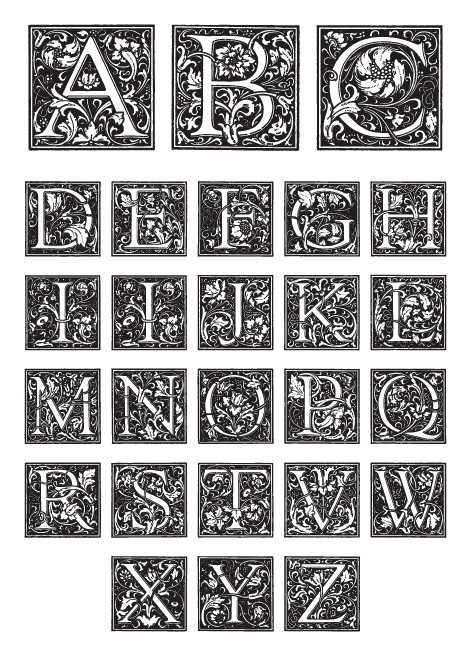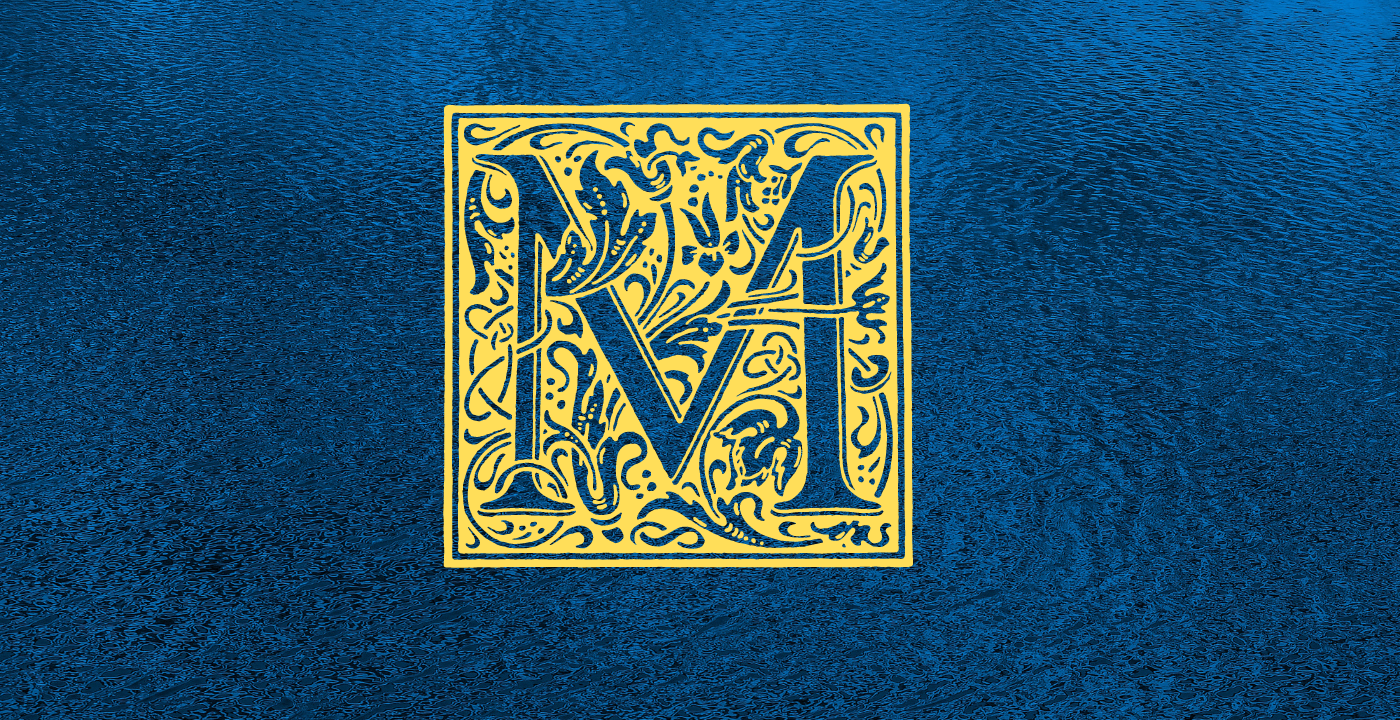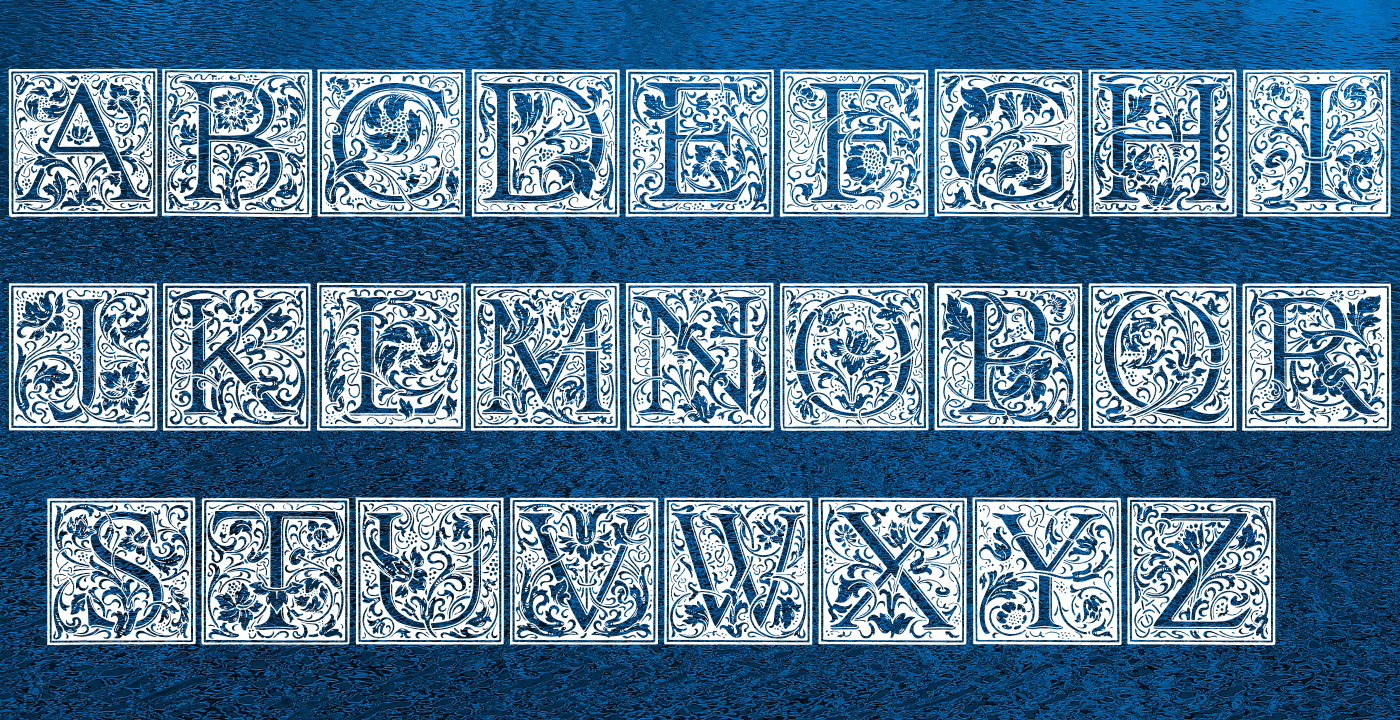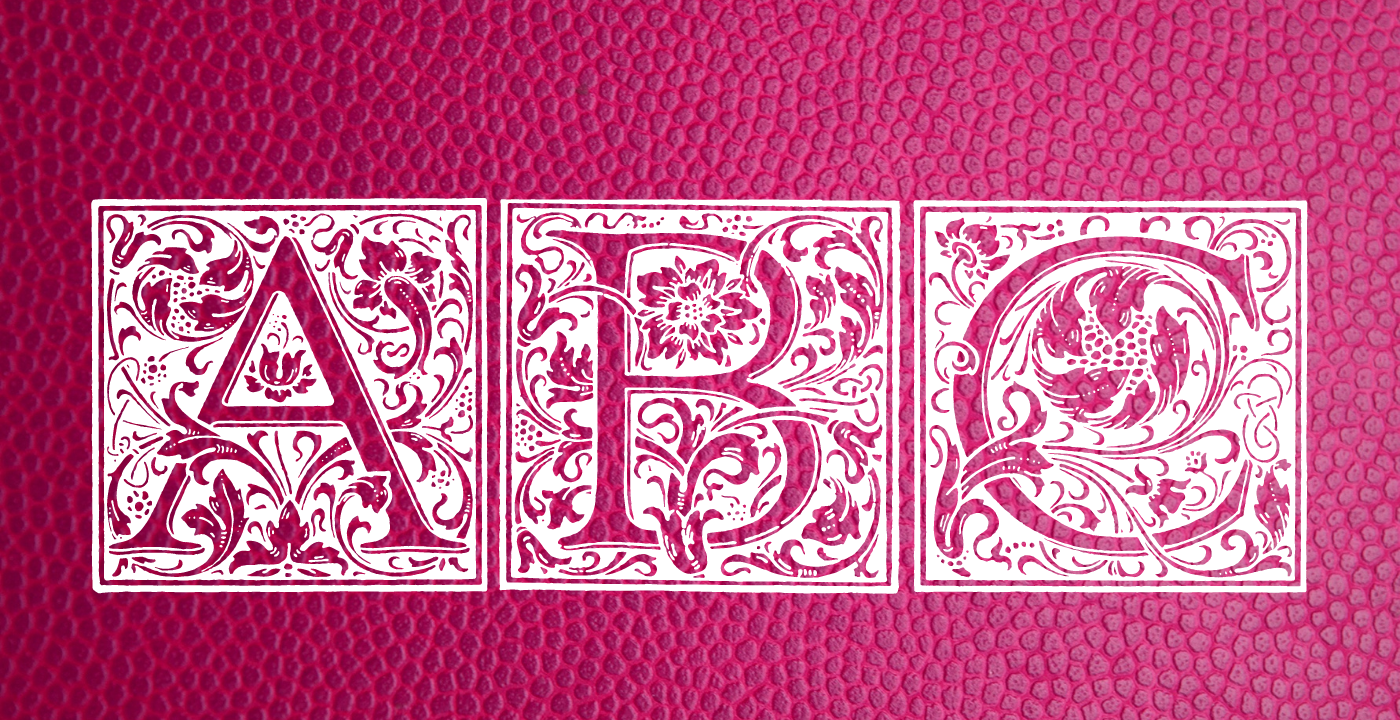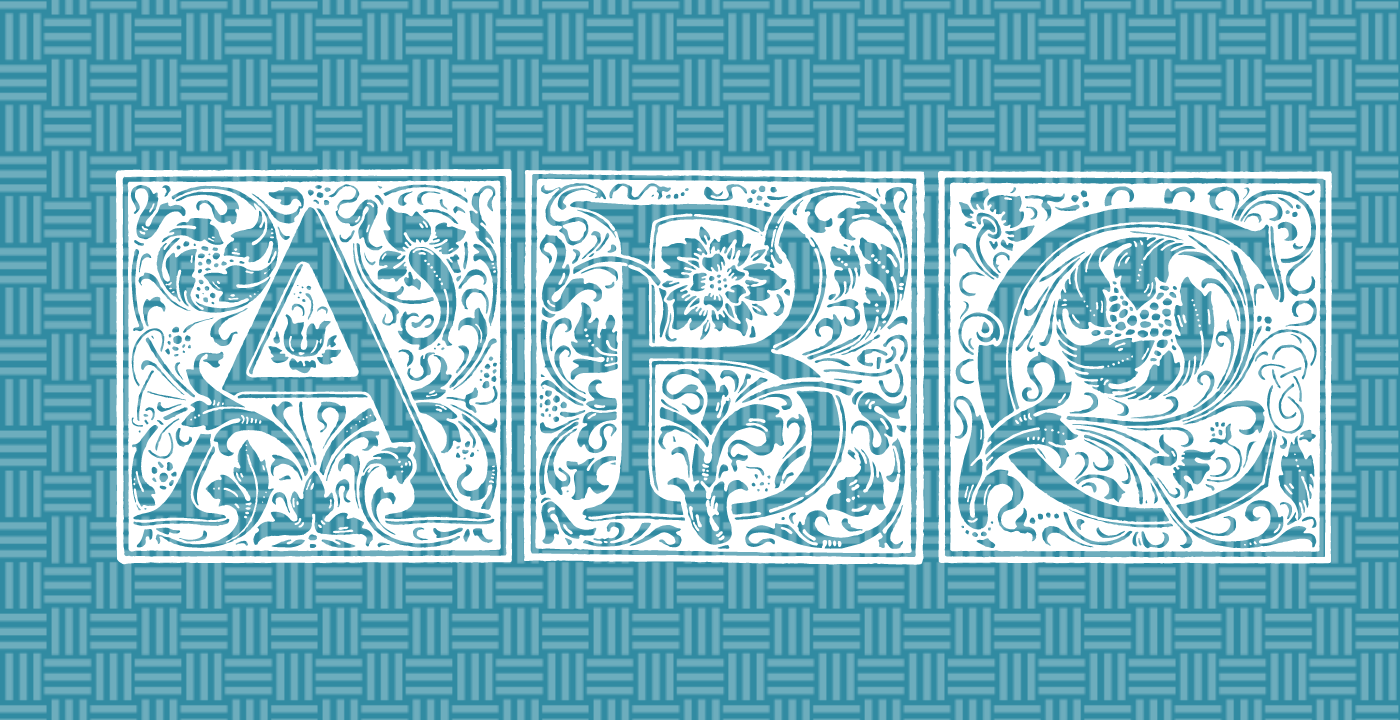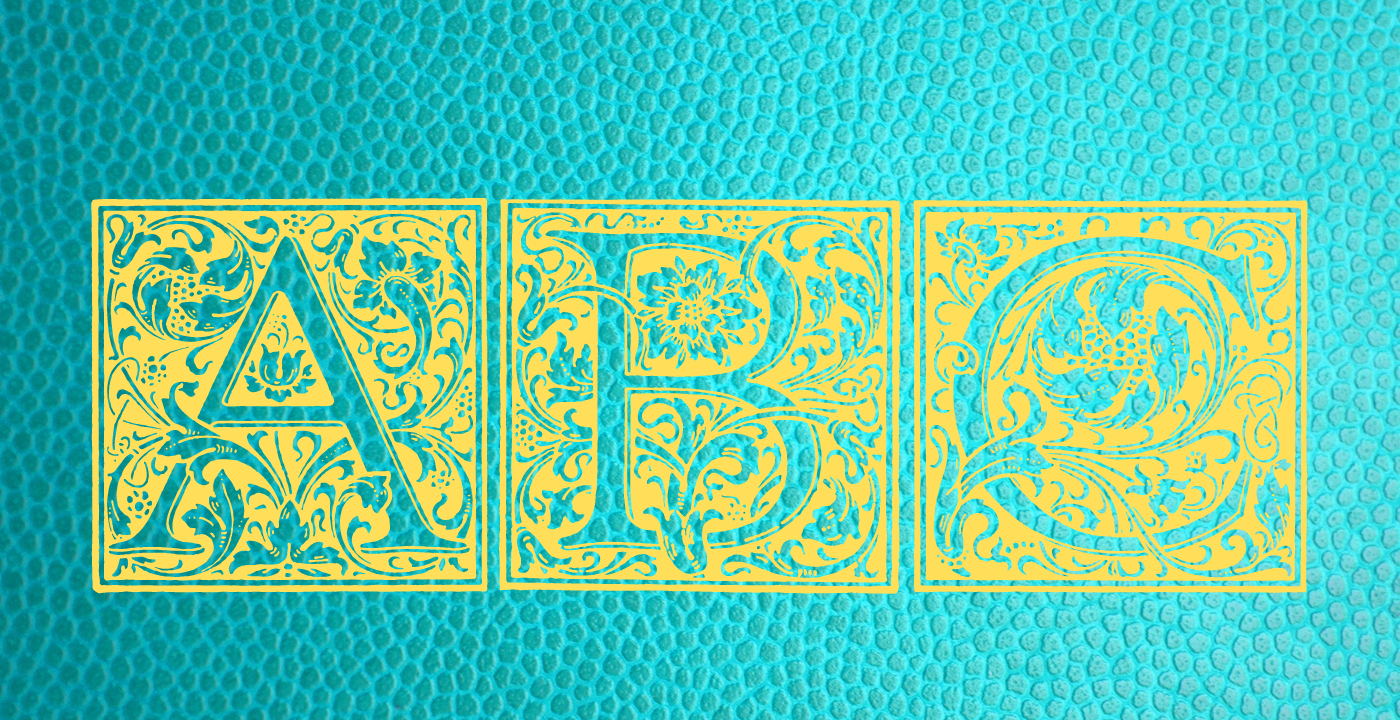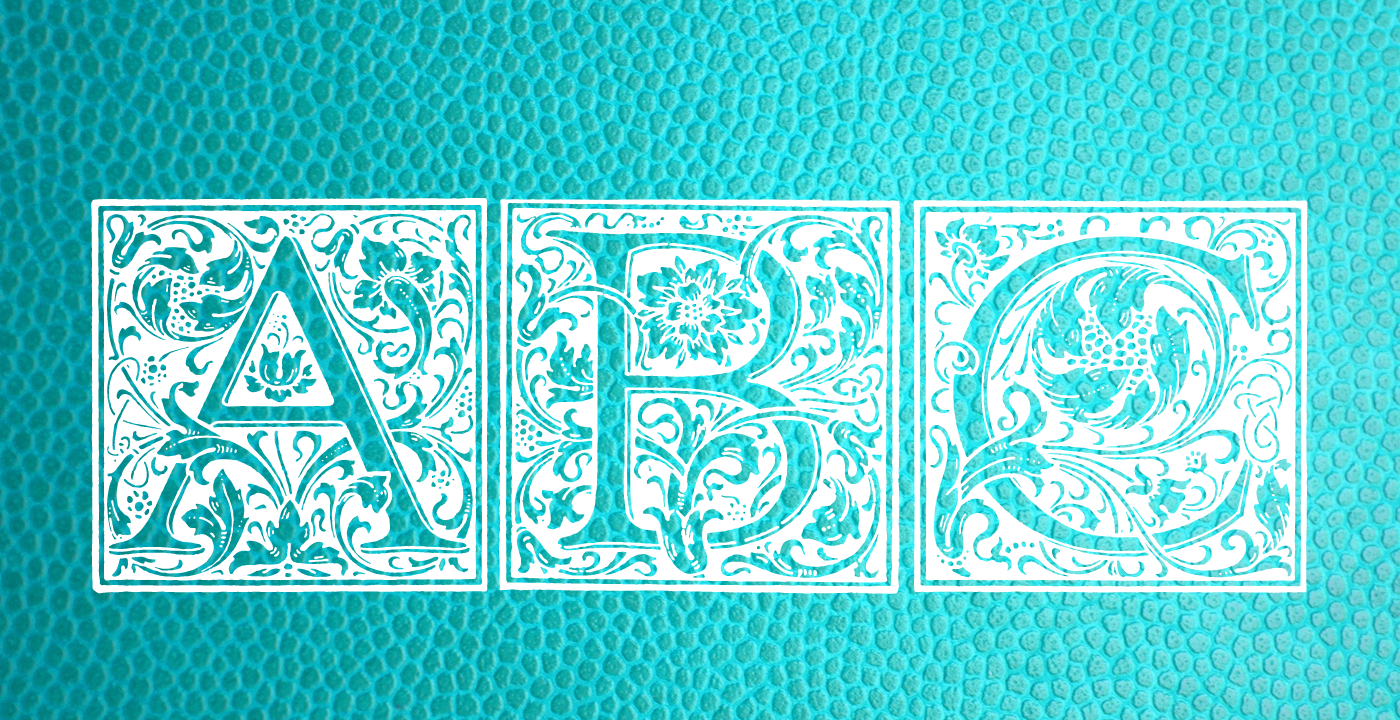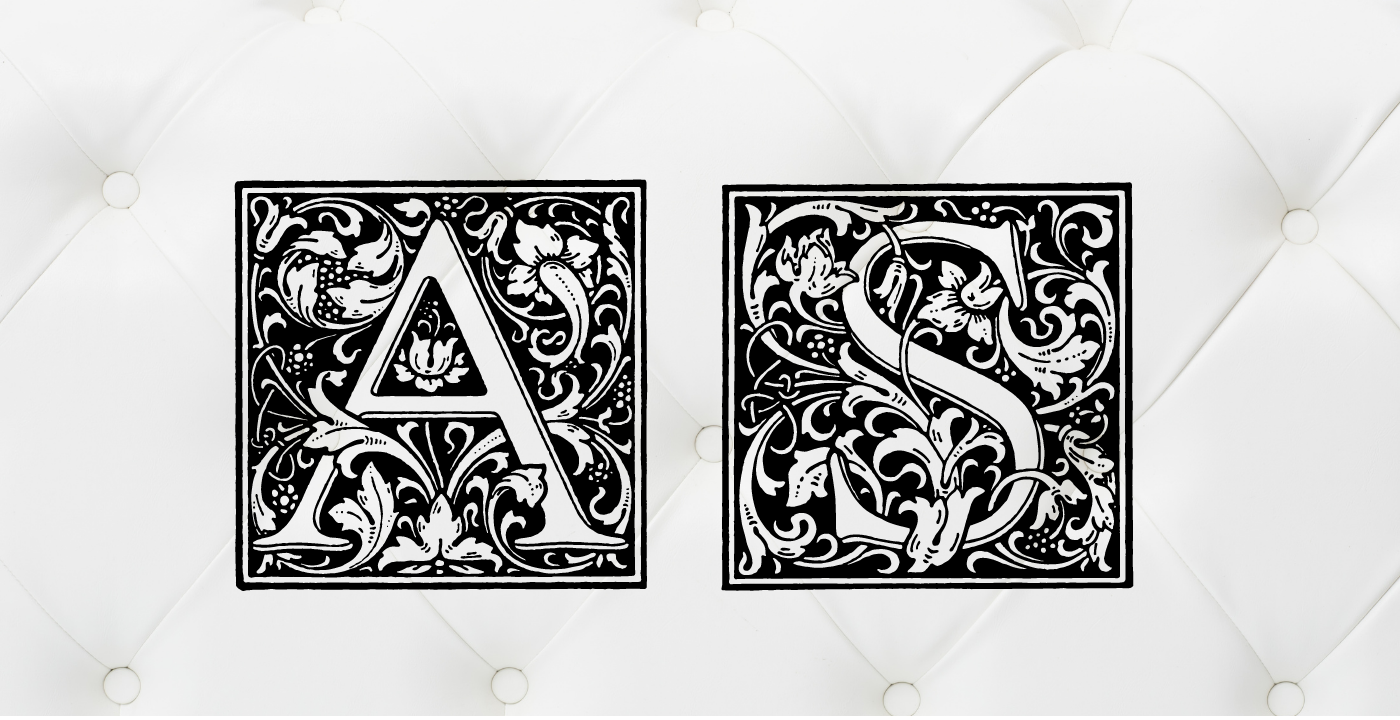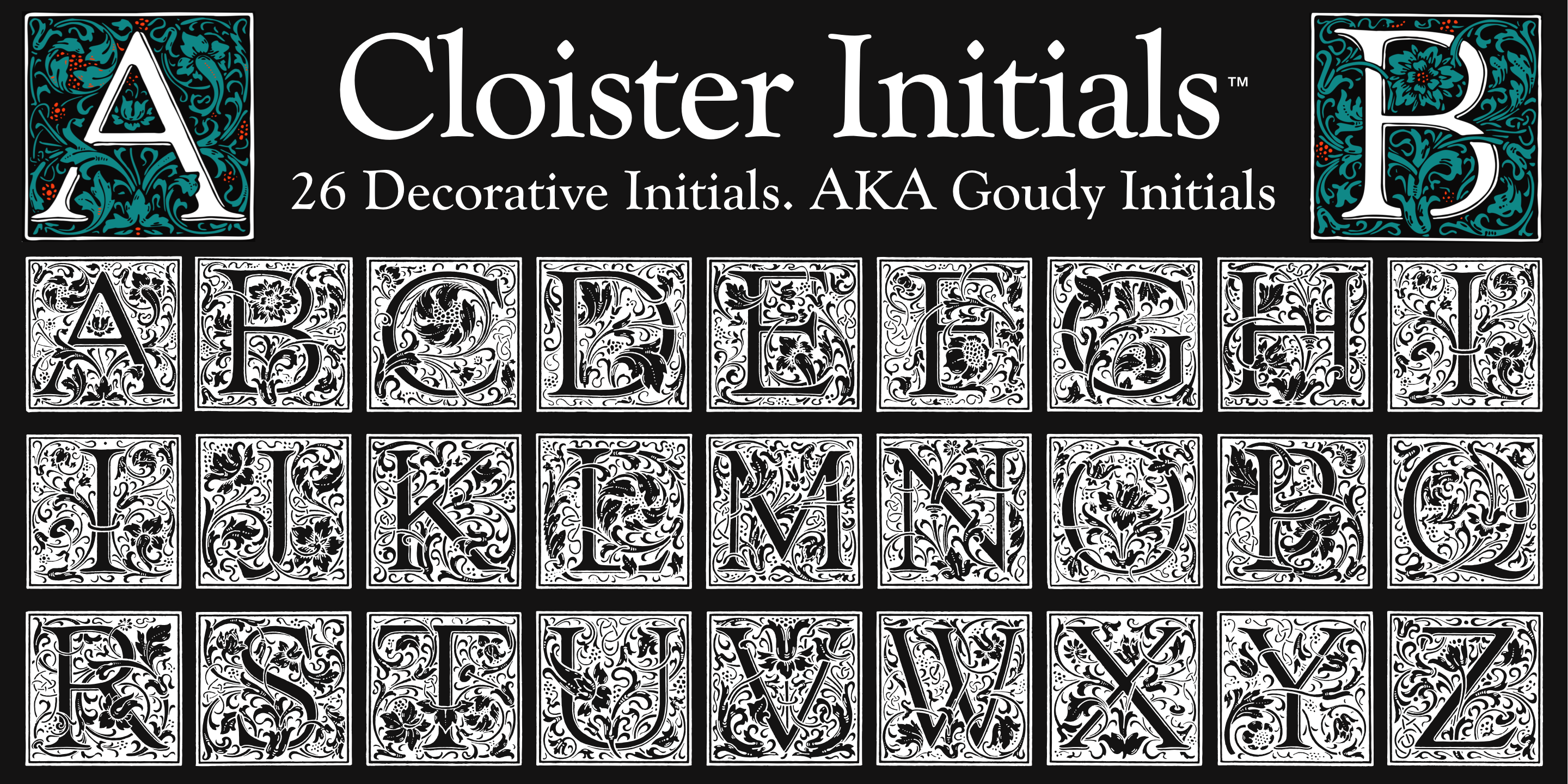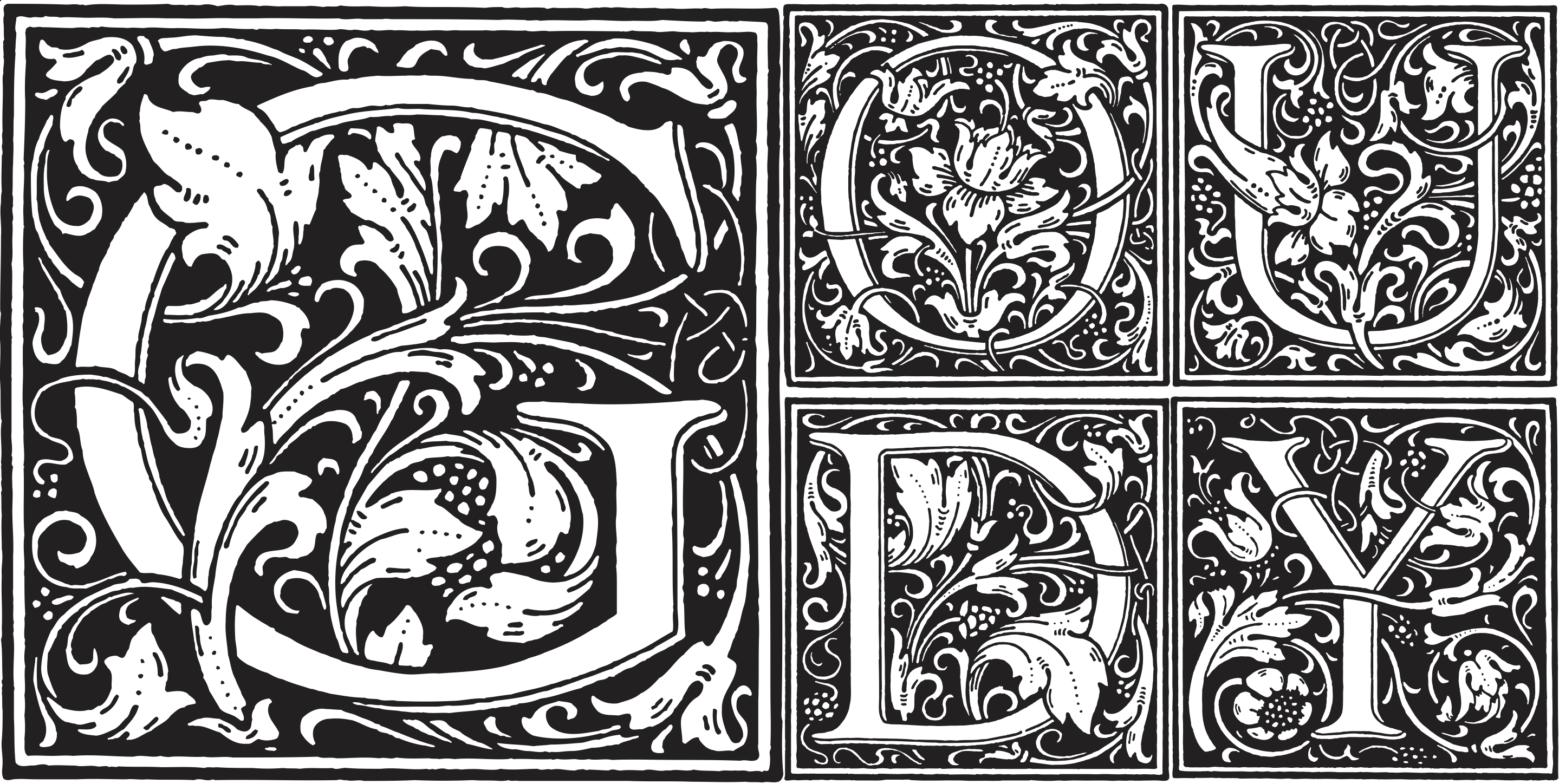
Cloister Initials™ (GroupType)
Cloister Initials™ have become FontHaus's most popular decorative initials font since we began selling it in 1993. First released in 1919 for ATF, Goudy's "Cloister Initials", sometimes called Goudy Initials is recognized as "one of the most beautifully designed set of initials ever made". We agree. Our digital revival is historically accurate because it was referenced from the actual ATF 144-point brass matrices acquired at the now legendary and final ATF auction in Elizabeth, New Jersey in 1993. The exquisite design of each character inspire it's use. Perfect for holiday invitations, elegant note pads, as drop caps or in period design. We've even sold these initials for use as company logos.